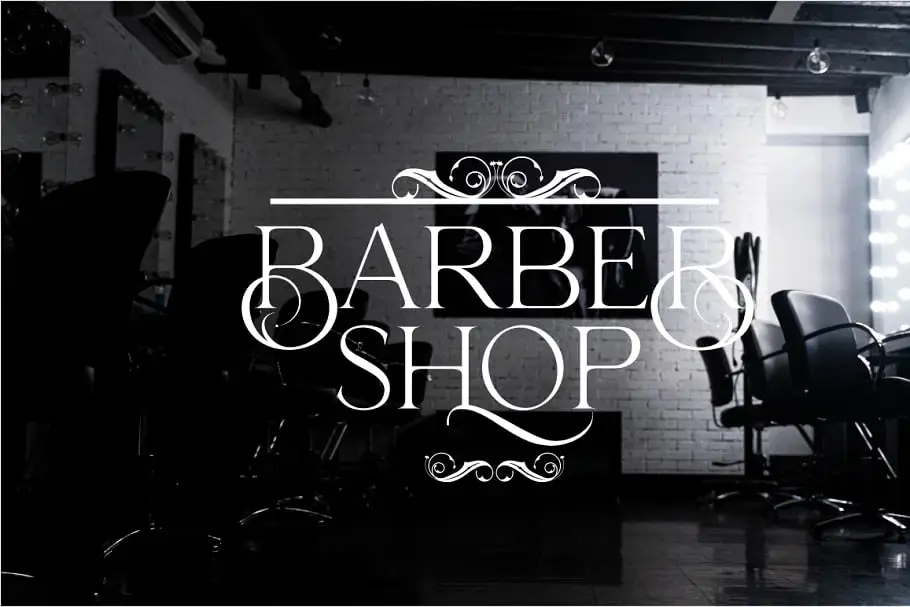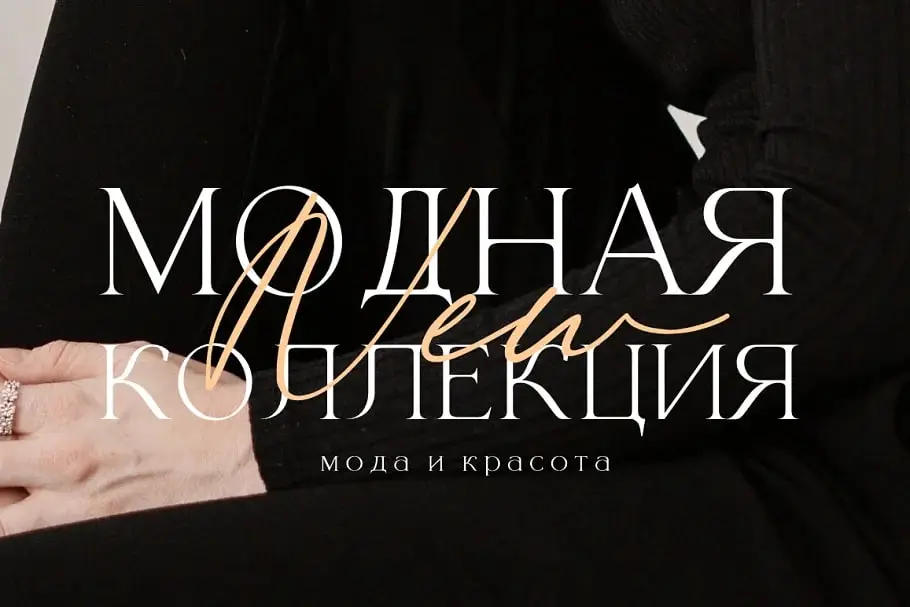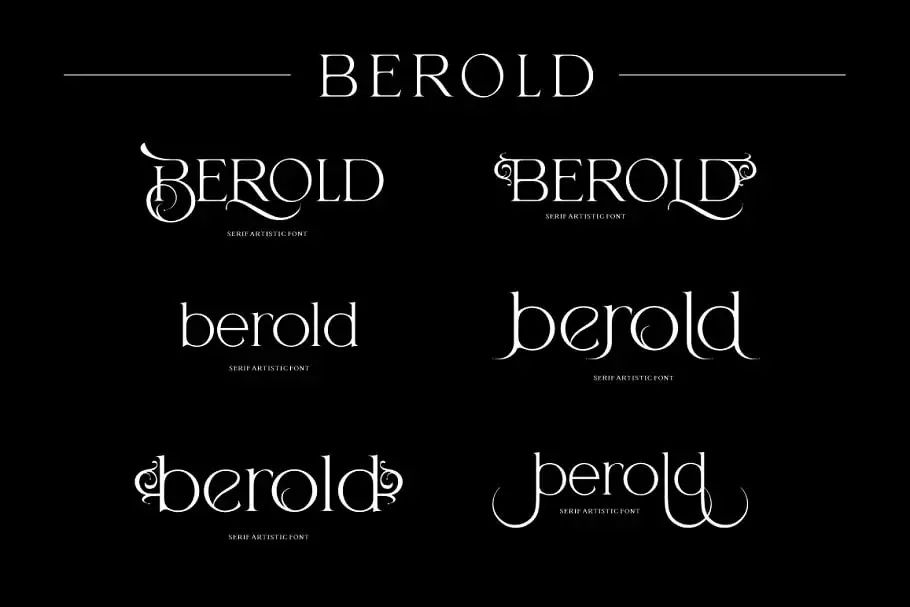
Berold-Artistic Serif Font Cyrillic
The Berold-Artistic Serif Font Cyrillic is a beautifully crafted typeface that combines elegance with readability. This font is perfect for projects that require a sophisticated touch, making it suitable for branding, logos, and various print materials.
• Stylish serif design that enhances visual appeal
• Cyrillic character support for diverse language applications
• Multiple weights for versatile usage
• Clear legibility in both large and small sizes
• Ideal for branding projects, editorial designs, and invitations
• Combine with sans-serif fonts for a modern look